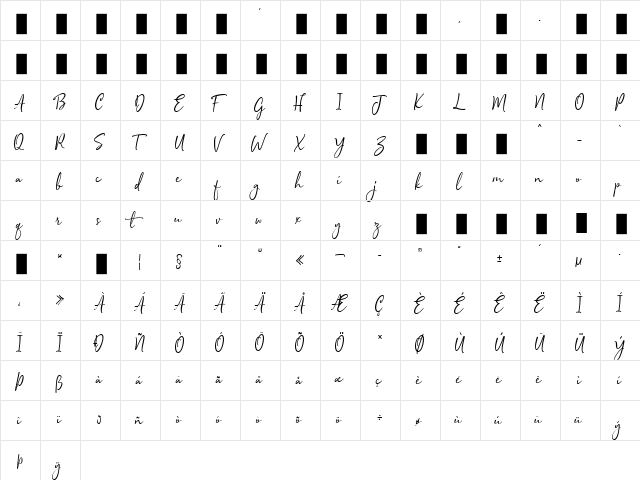
Sophistica 1 Swashes Regular
Design Context for Sophistica 1 Swashes Typeface
Sophistica 1 Swashes flows with the natural rhythm of handwritten lettering, making it ideal for designs that call for warmth and personal expression.
Font Pairing: Combine Sophistica 1 Swashes with a simple geometric sans for maximum contrast — the tension between flowing curves and clean structure is a classic typographic pairing.
Pro Tip: Pair Sophistica 1 Swashes with a clean sans-serif for supporting text. The contrast between fluid script and geometric structure creates an elegant typographic hierarchy.